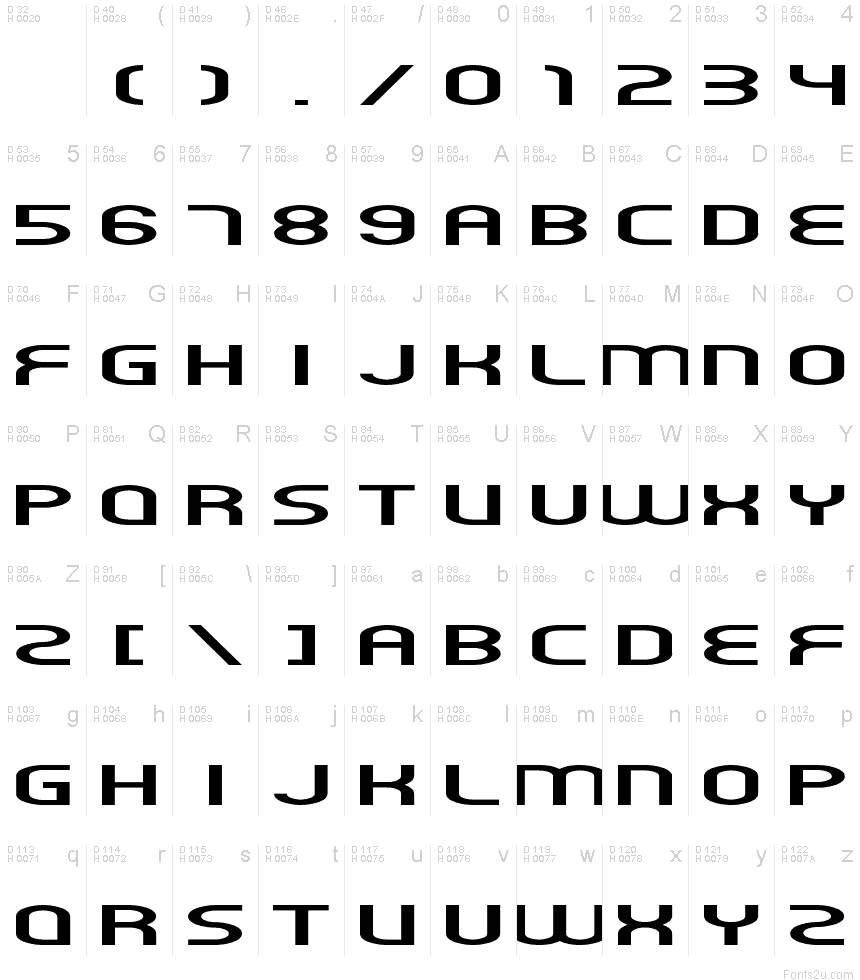
Timeline by 11th floor is a free futuristic display font built from broad, low-slung letterforms, firm vertical strokes, and smooth compressed curves that stretch horizontally across the line. Rounded joins soften its machine-cut silhouette.
As a compact technological emblem, the lettering can shape branding for electronics and software, or lend prominent title cards a sleek retro-future edge. Its streamlined forms also suit science-fiction game interfaces, electronic music packaging, and promotional event posters drawing on arcade hardware and space-age industrial design.